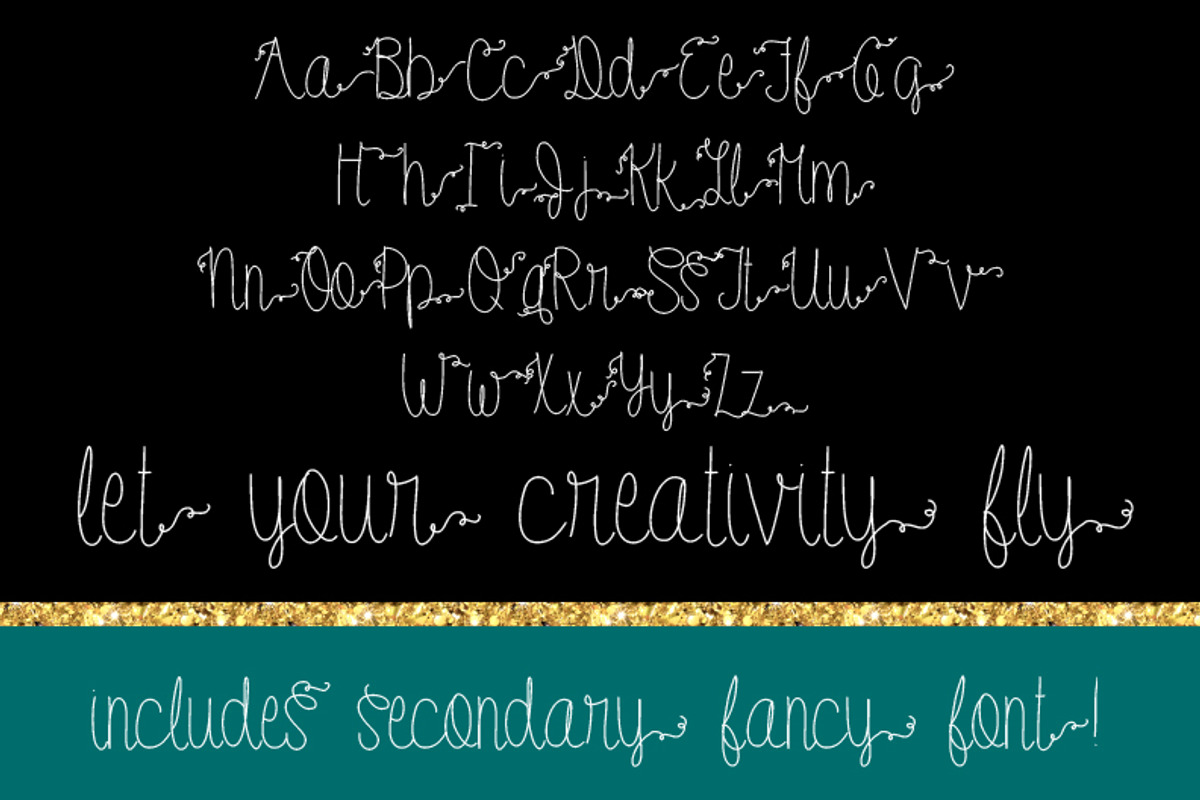
Kellie - 2 Fonts Included
Kellie - 2 Fonts Included by OnTheSpotStudio is a font selected for branding, posters, packaging, typography.
- Includes a secondary fancier font that includes endings on each letter to fancy up your design just a little!
Why Kellie - 2 Fonts Included is worth a look
Kellie - 2 Fonts Included by OnTheSpotStudio fits naturally into Branding, posters, packaging, typography.